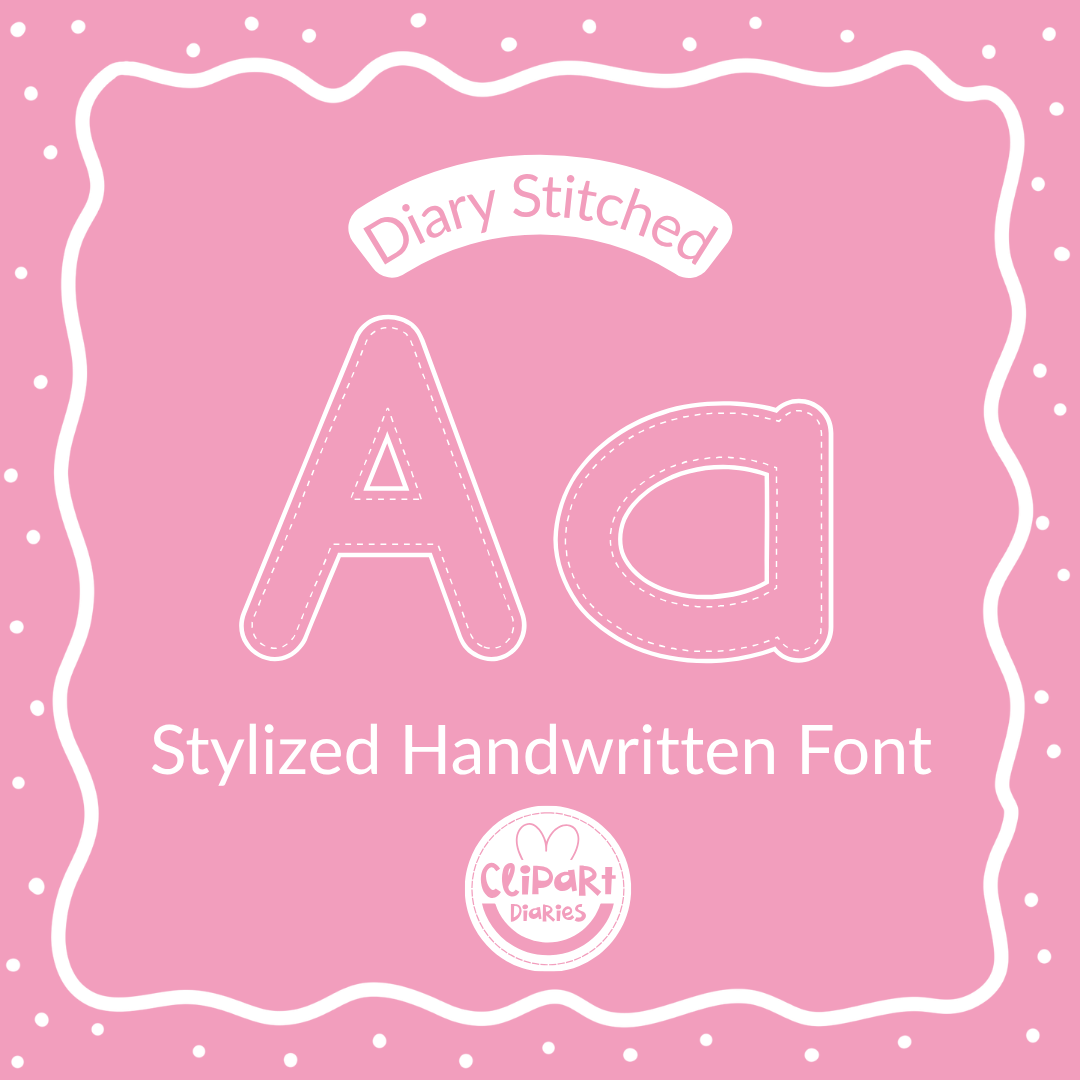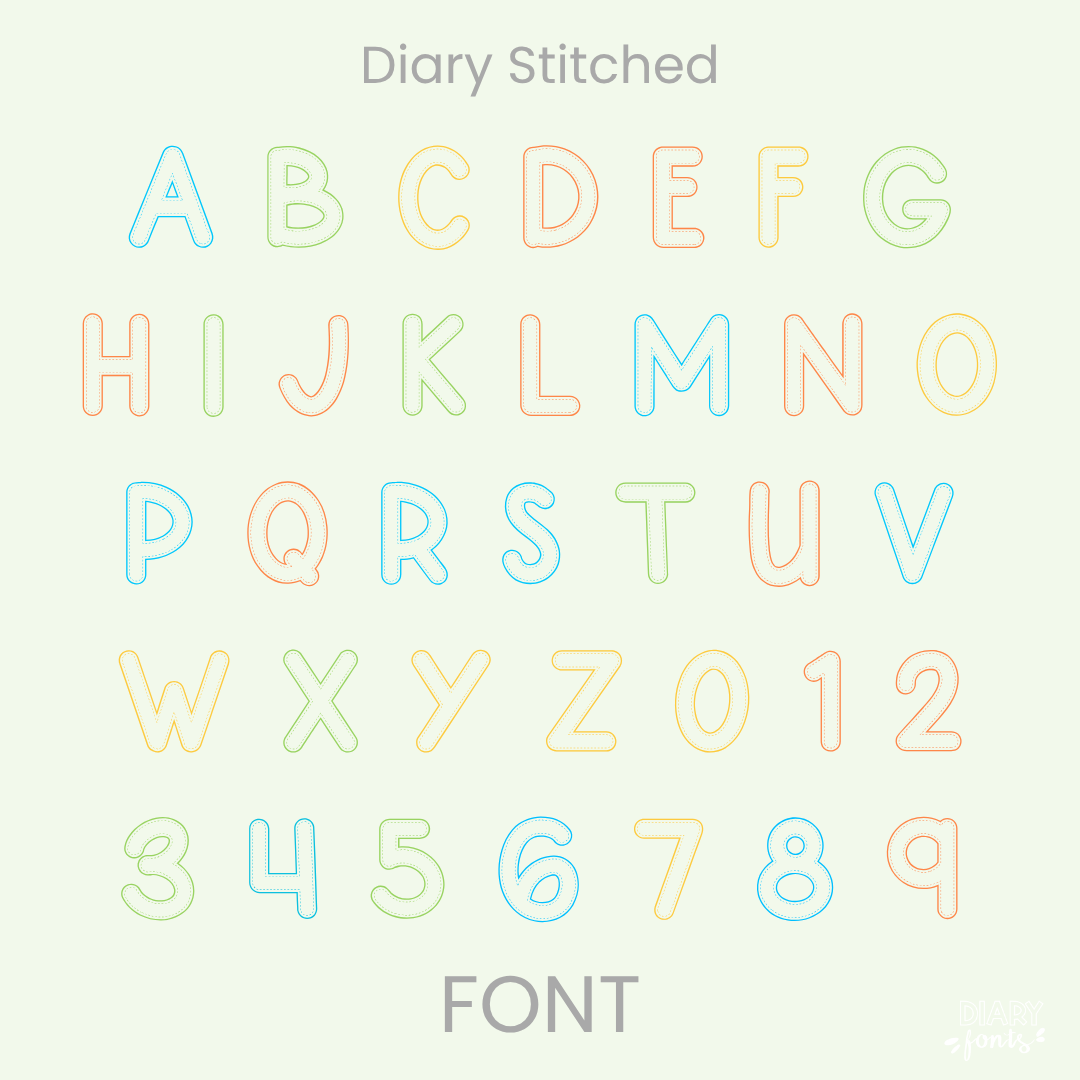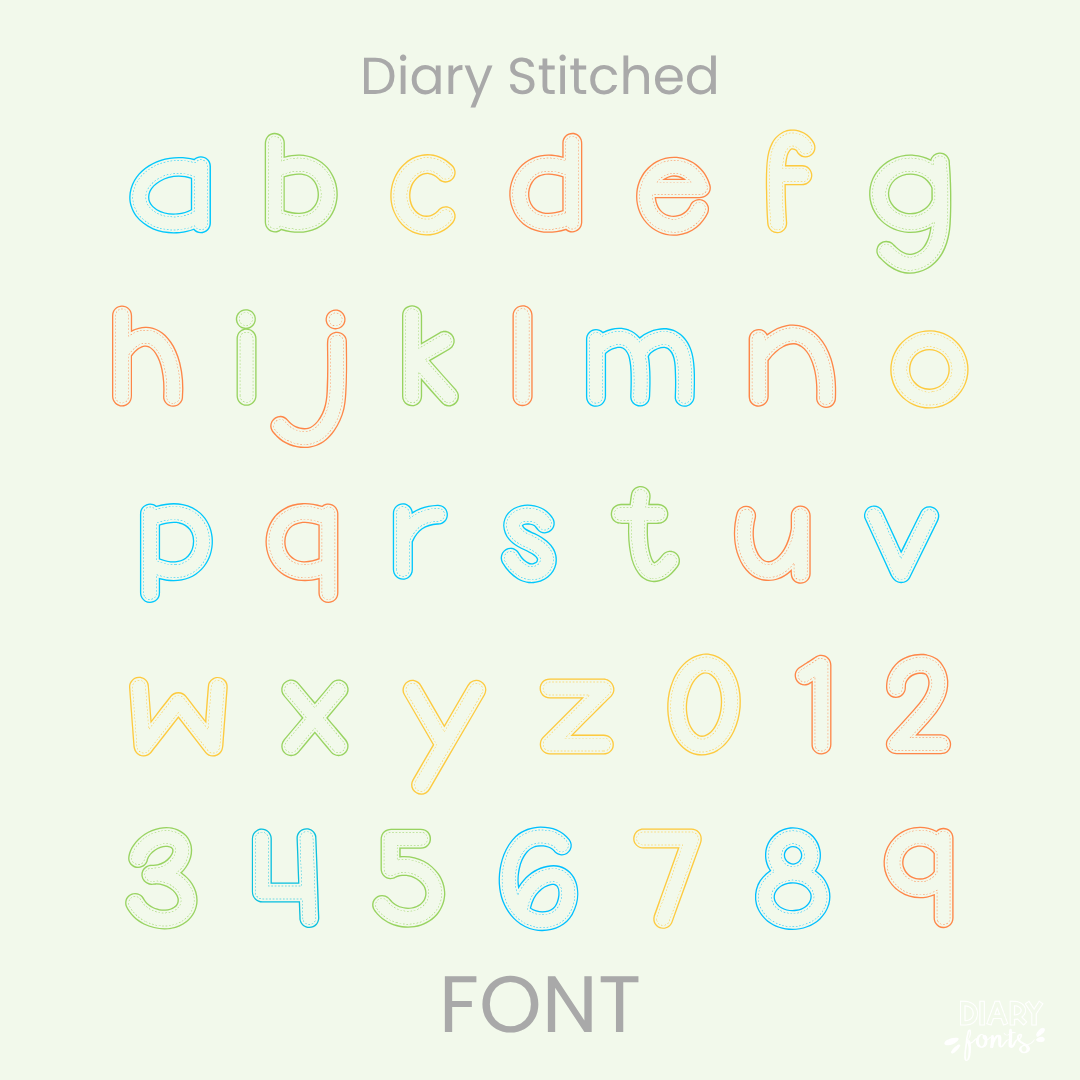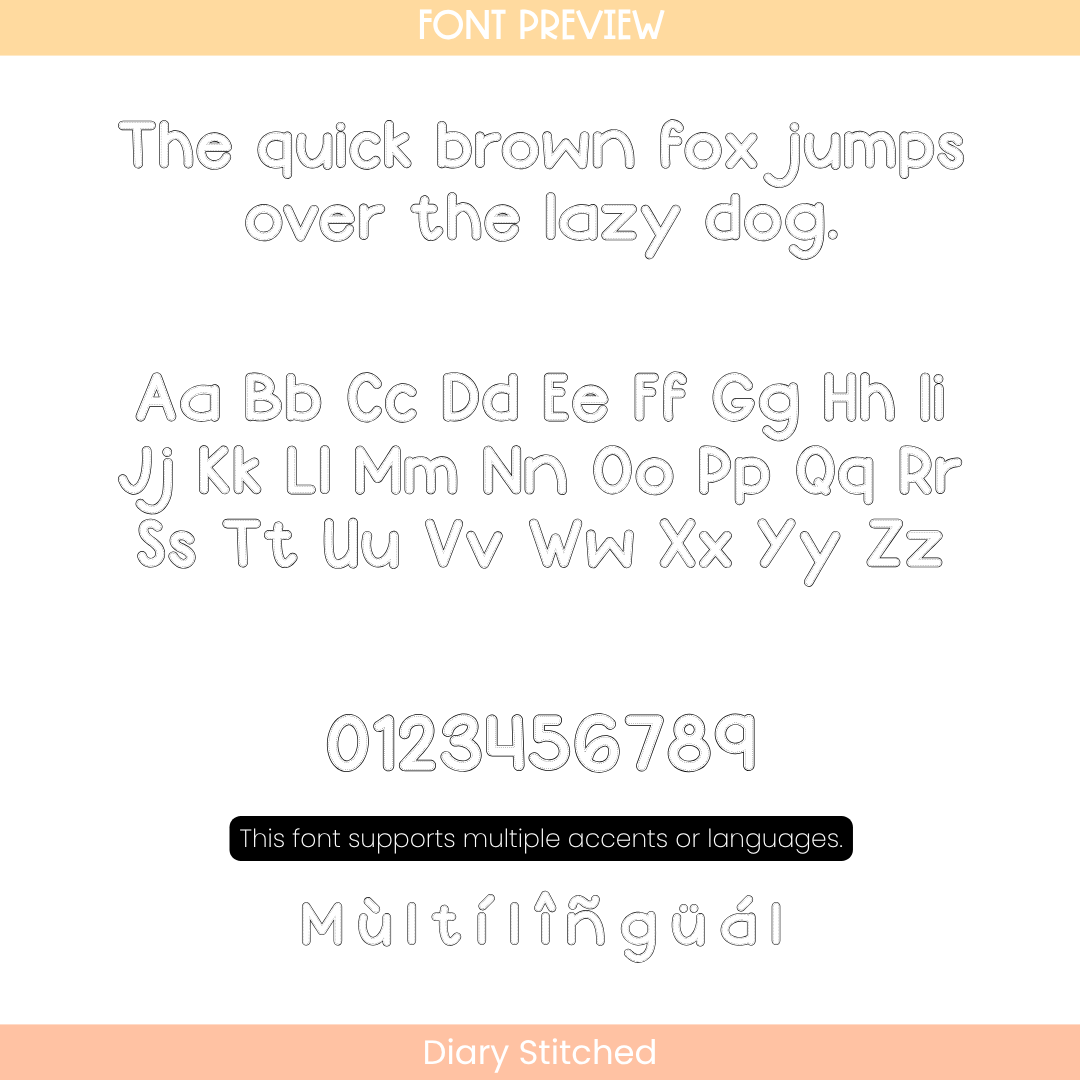
If you’ve been searching for a unique decorative font that brings a warm, homemade feel to your layouts, Diary Stitched is about to become your new absolute favorite creative tool. This playful display font features thick, chunky letterforms detailed with a sweet, hand-drawn dashed stitching line running right through the center of each letter outline. Standing nice and straight along the baseline with a perfectly balanced shape, it gives you that effortless, organic look while providing exceptionally clear and legible worksheet typography for your sweet students.